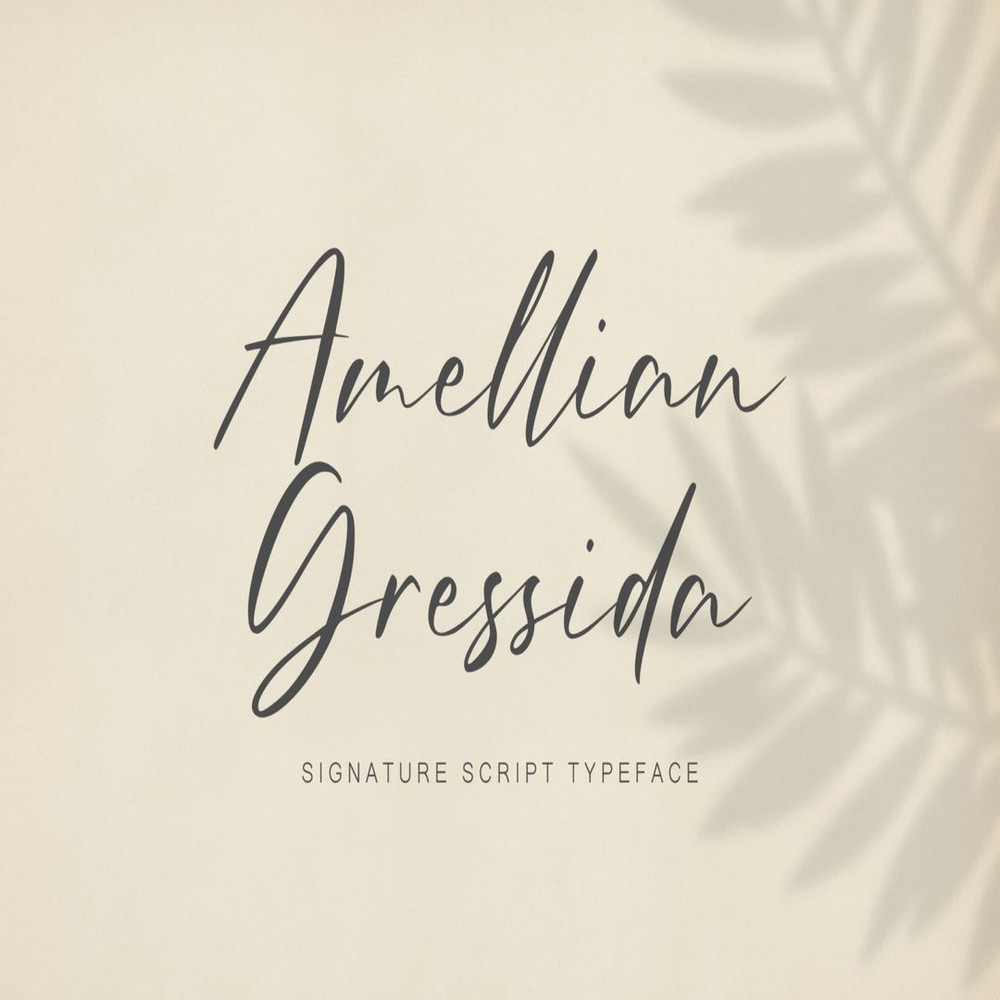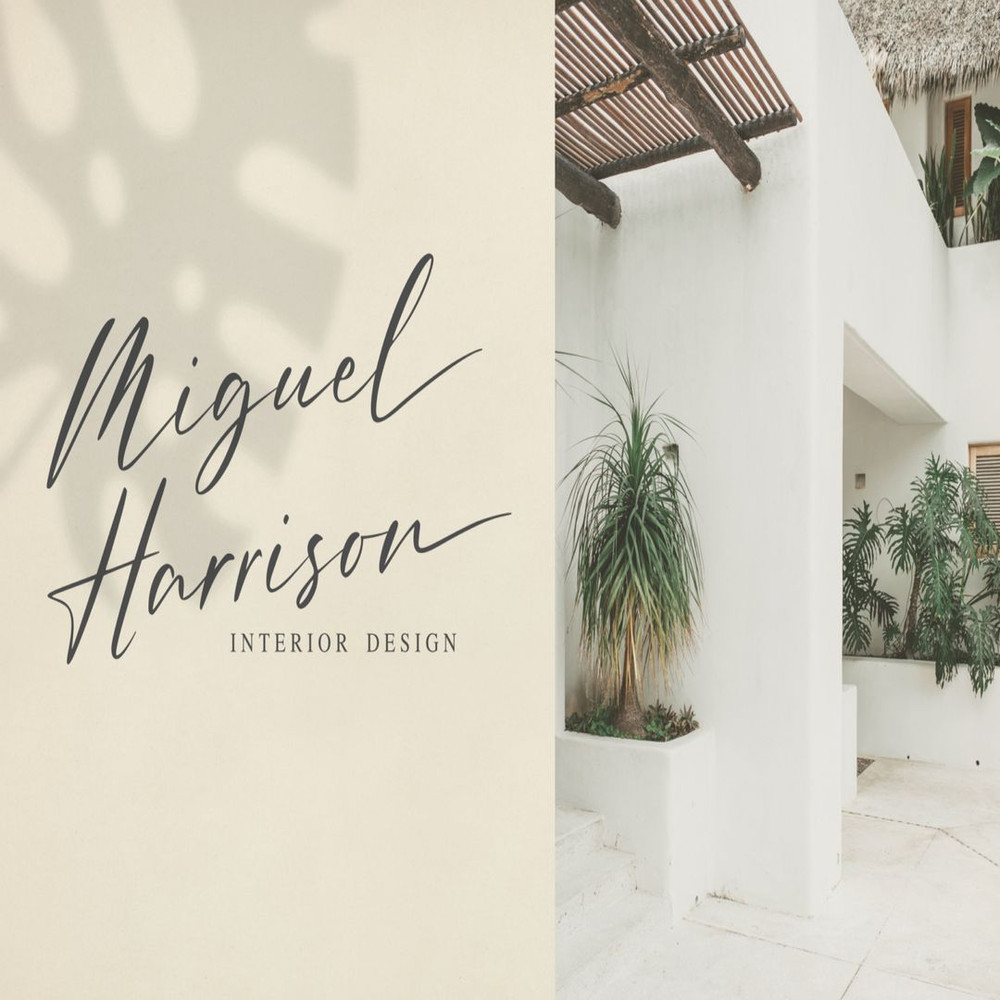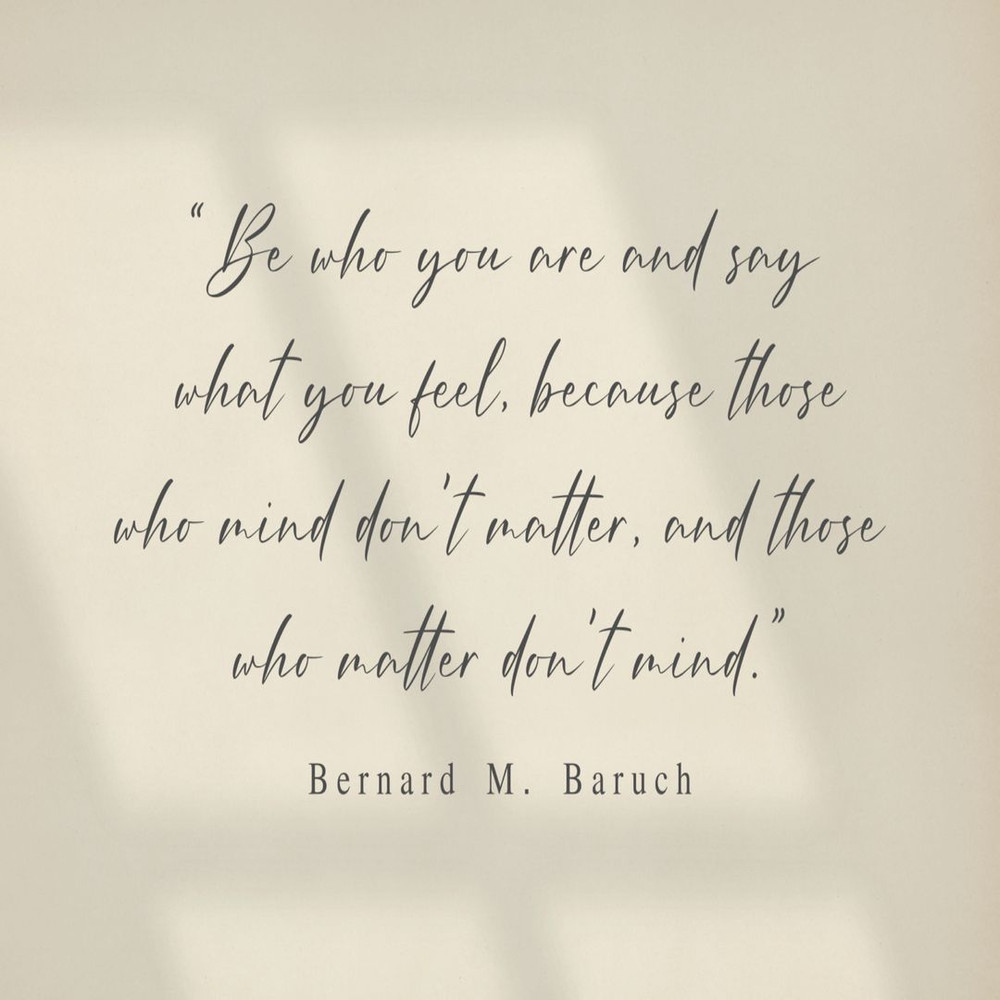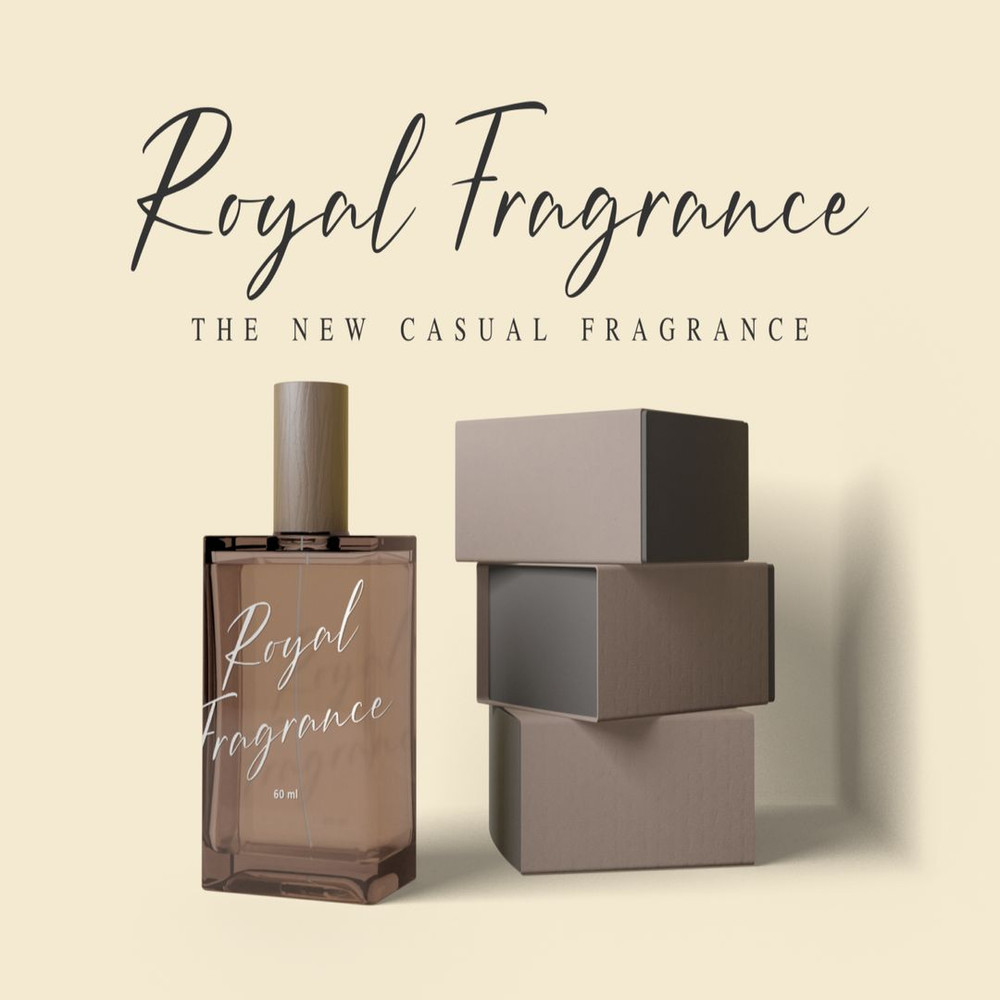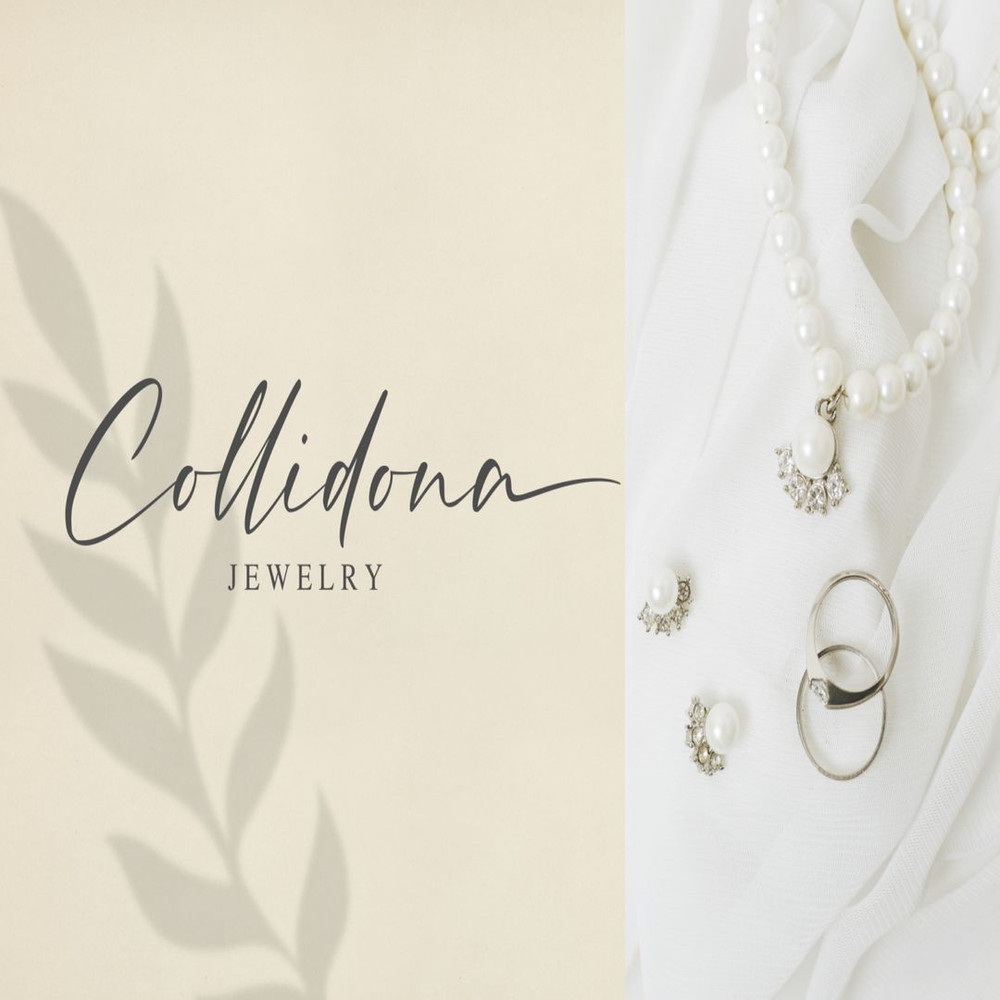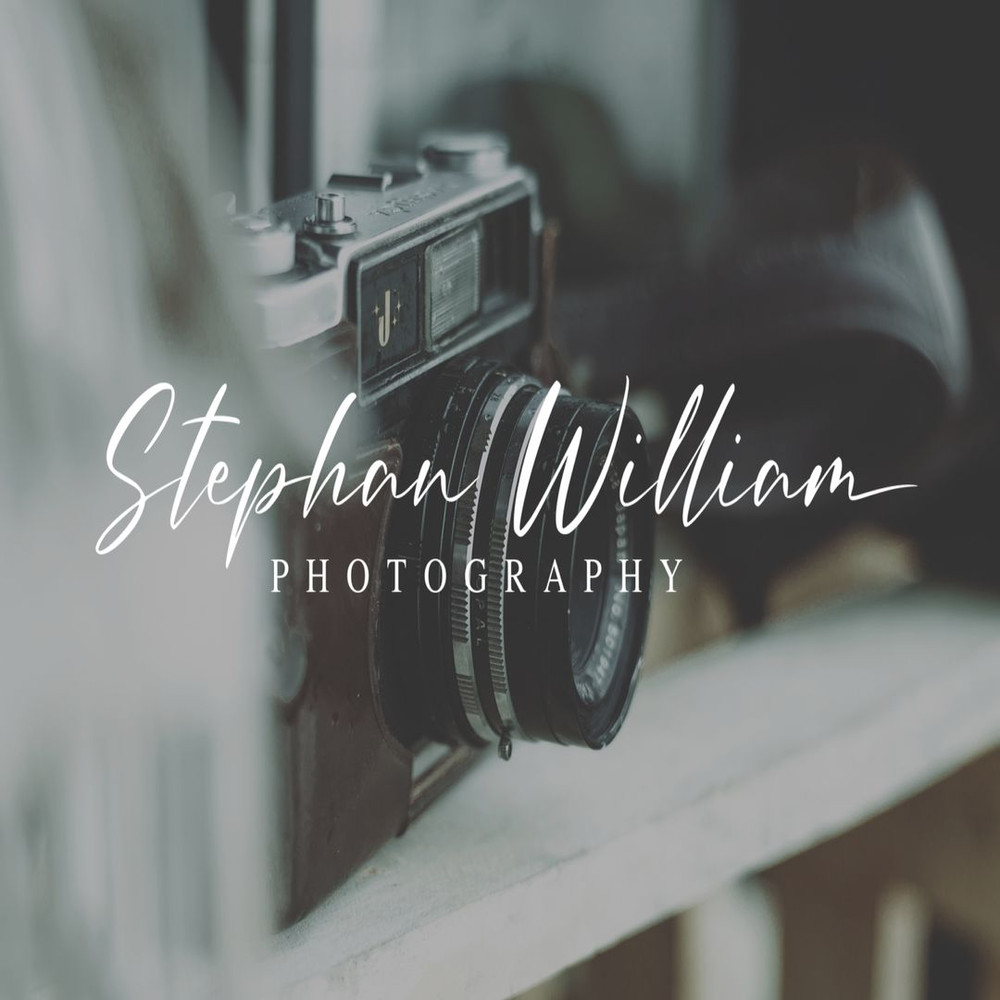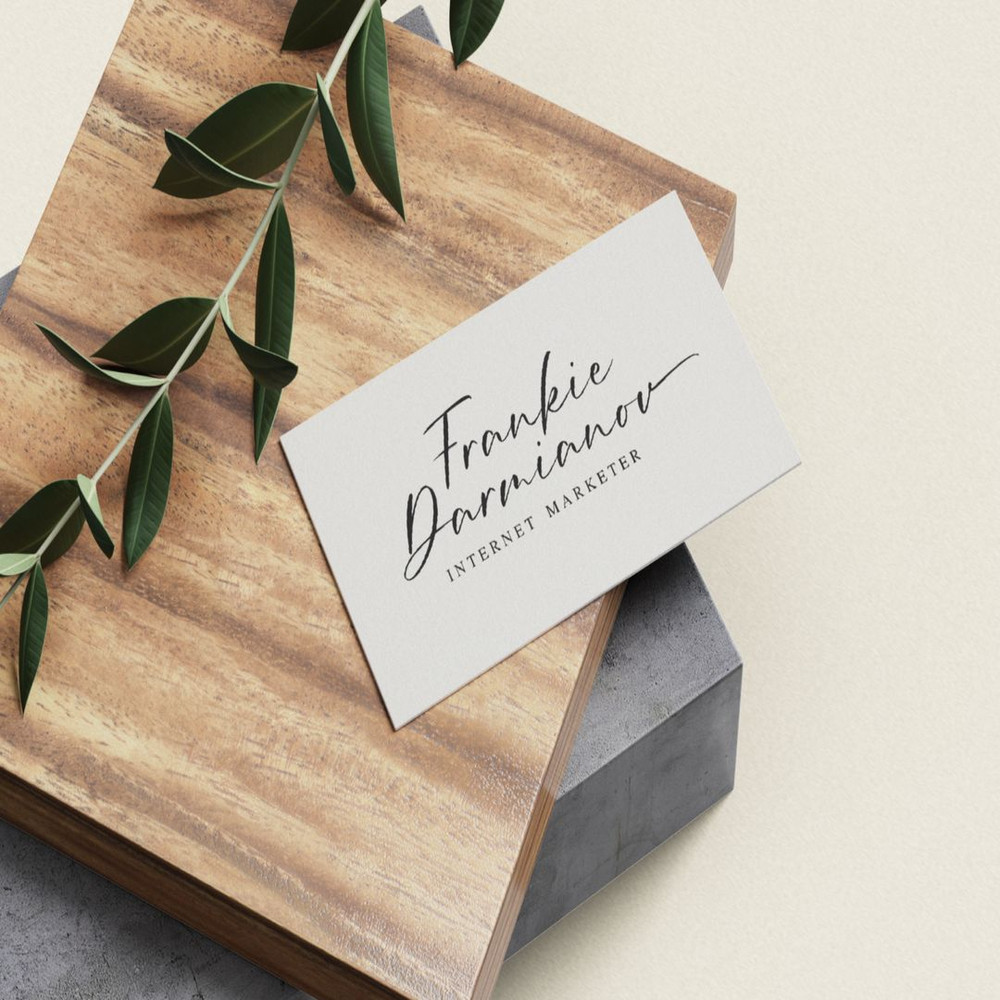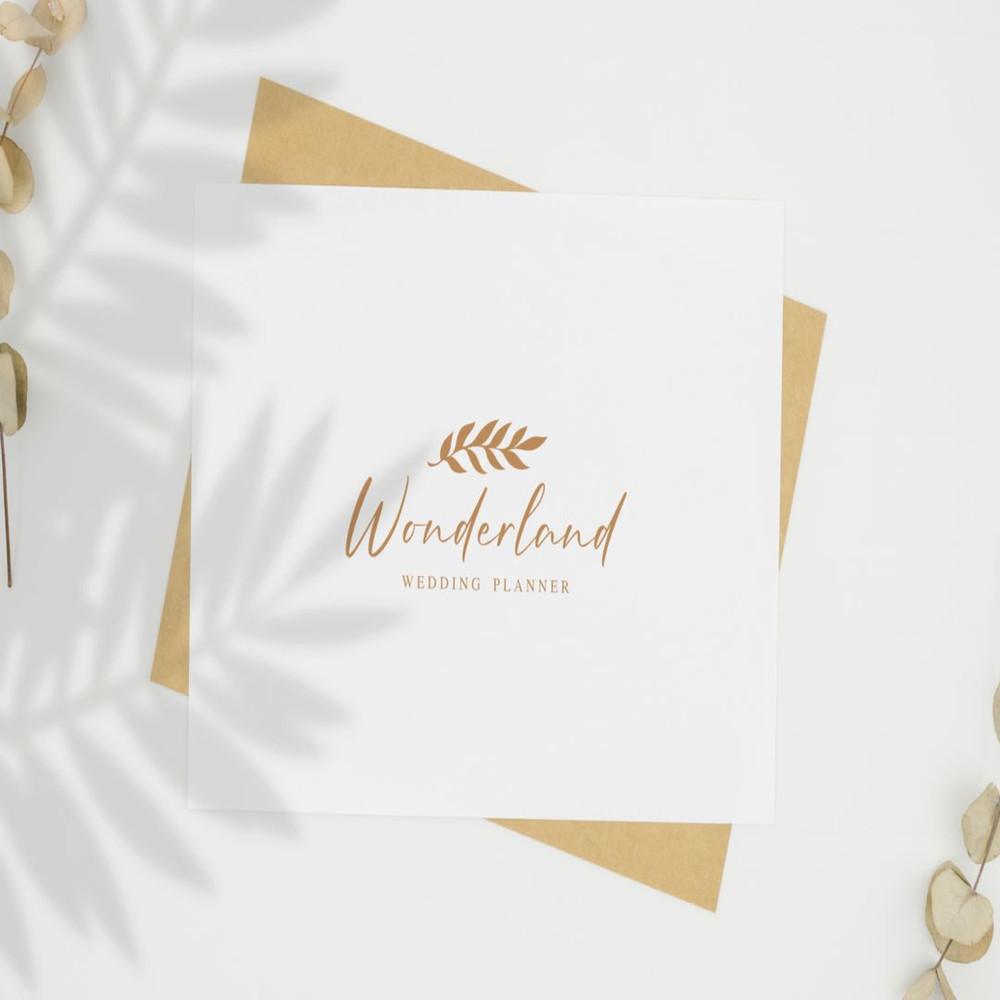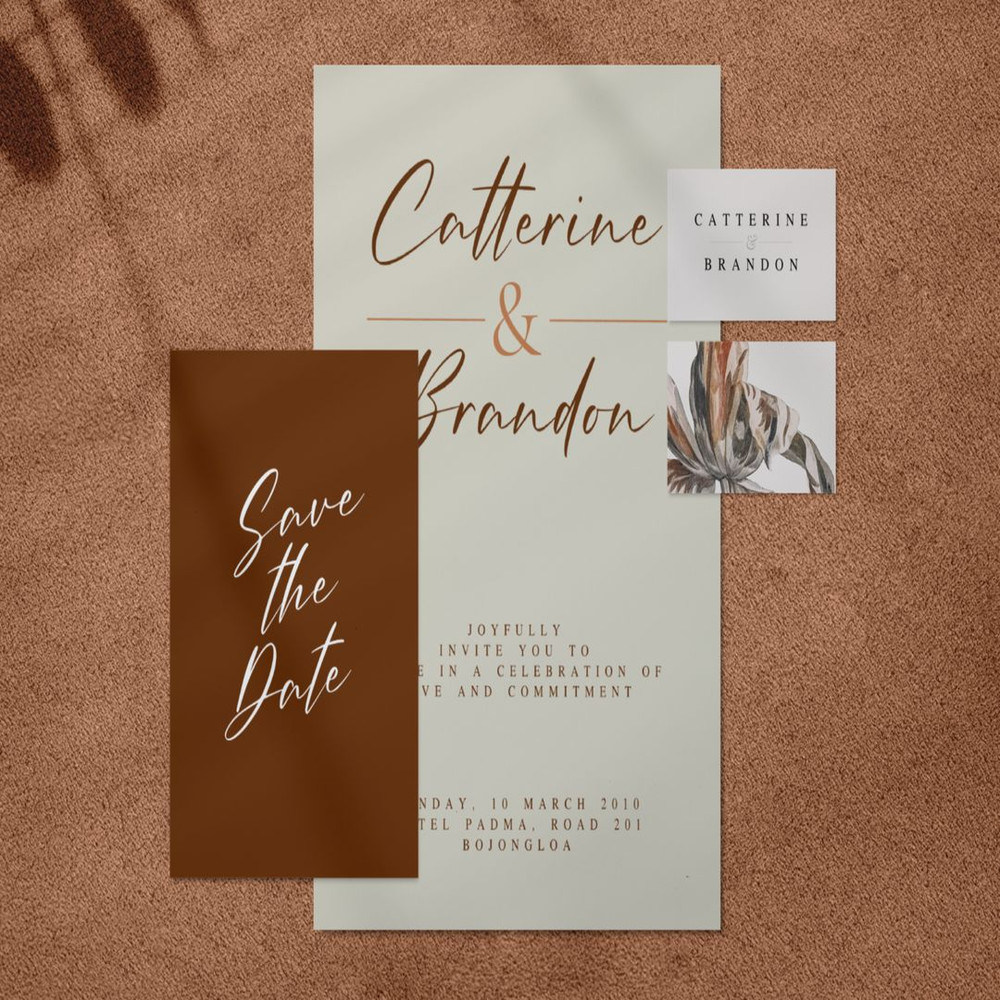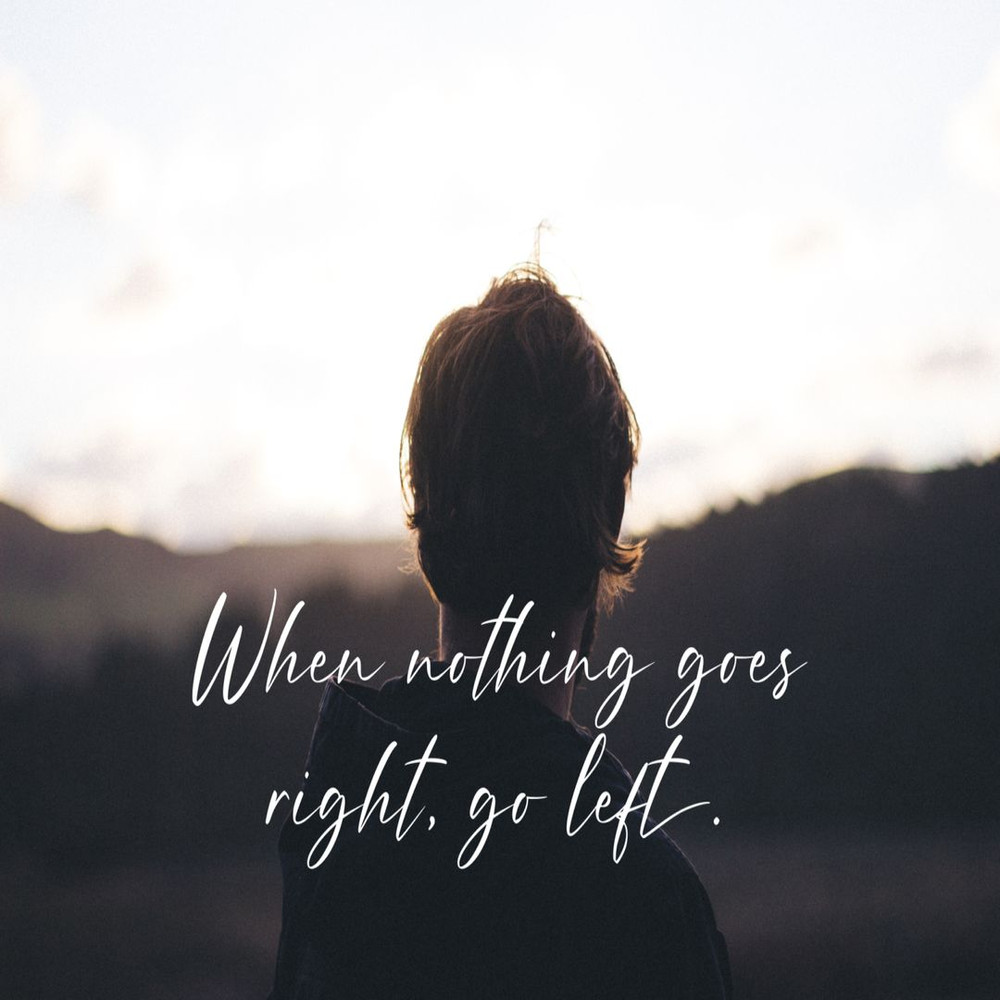
Amellian Gressida is a modern signature typeface. Amellian Gressida has a natural & modern handwritten style for any purpose, it comes with ligatures and alternates for ending swashes.
Amellian Gressida is perfect for many different projects such as logos & branding, invitation, stationery, wedding designs, social media posts, advertisements, product packaging, product designs, label, photography, watermark, special events or anything.
Amellian Gressida is a modern signature typeface. Amellian Gressida has a natural & modern handwritten style for any purpose, it comes with ligatures and alternates for ending swashes.
Amellian Gressida is perfect for many different projects such as logos & branding, invitation, stationery, wedding designs, social media posts, advertisements, product packaging, product designs, label, photography, watermark, special events or anything.
Amellian Gressida is a modern signature typeface. Amellian Gressida has a natural & modern handwritten style for any purpose, it comes with ligatures and alternates for ending swashes.
Amellian Gressida is perfect for many different projects such as logos & branding, invitation, stationery, wedding designs, social media posts, advertisements, product packaging, product designs, label, photography, watermark, special events or anything.
Amellian Gressida is a modern signature typeface. Amellian Gressida has a natural & modern handwritten style for any purpose, it comes with ligatures and alternates for ending swashes.
Amellian Gressida is perfect for many different projects such as logos & branding, invitation, stationery, wedding designs, social media posts, advertisements, product packaging, product designs, label, photography, watermark, special events or anything.